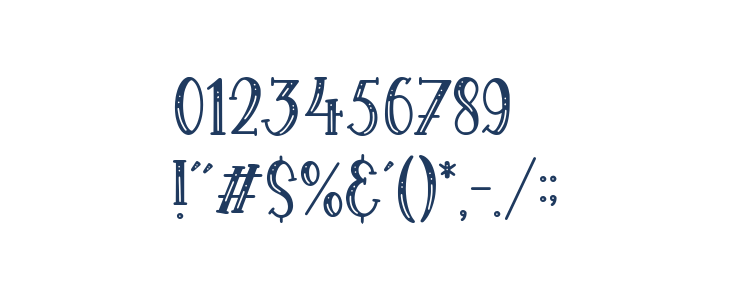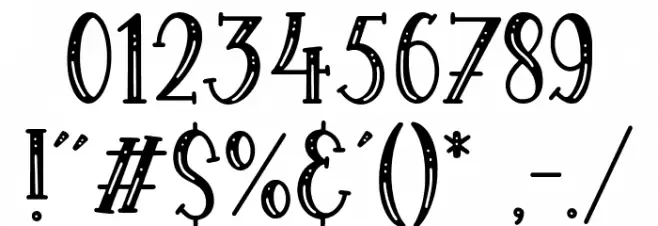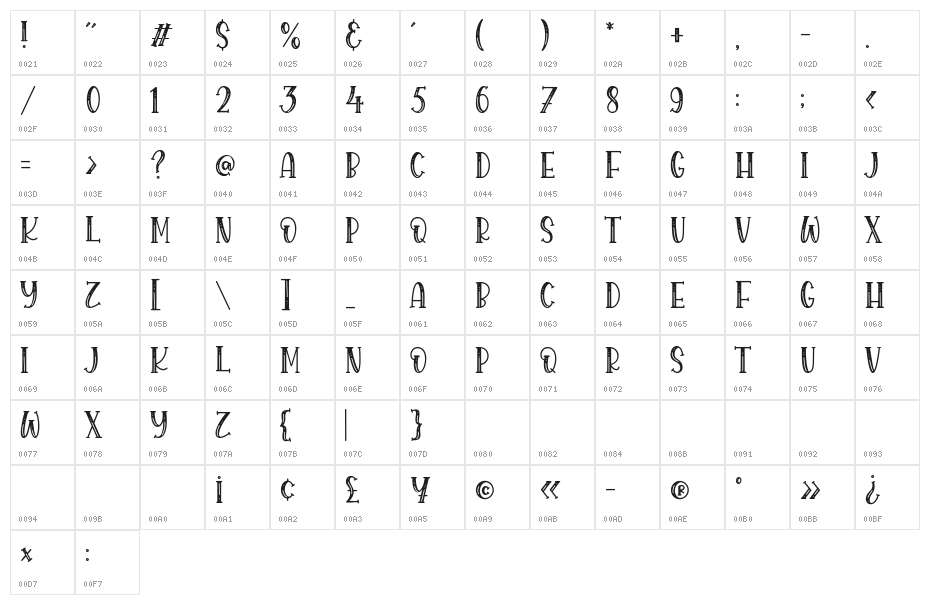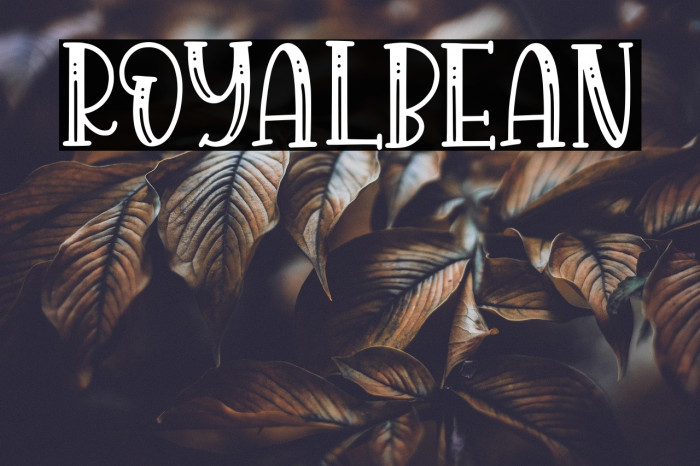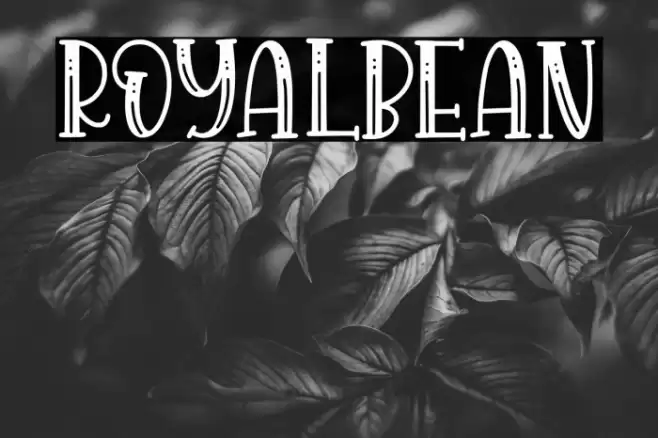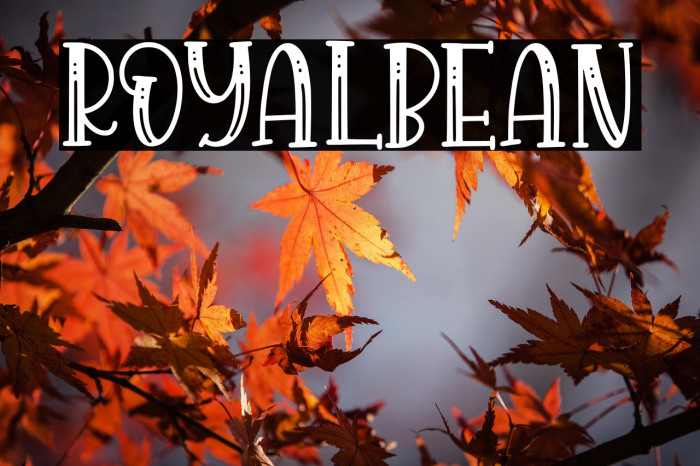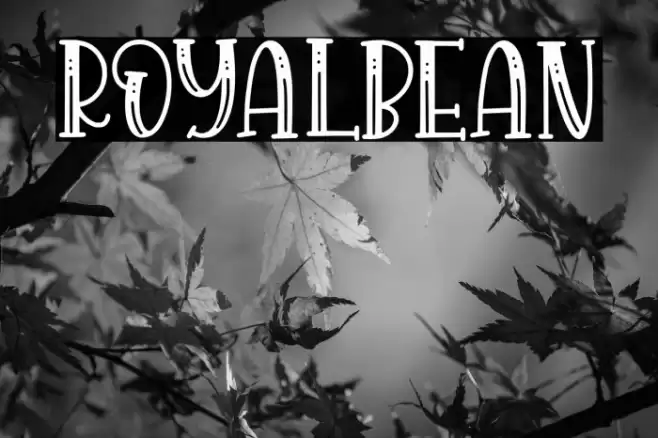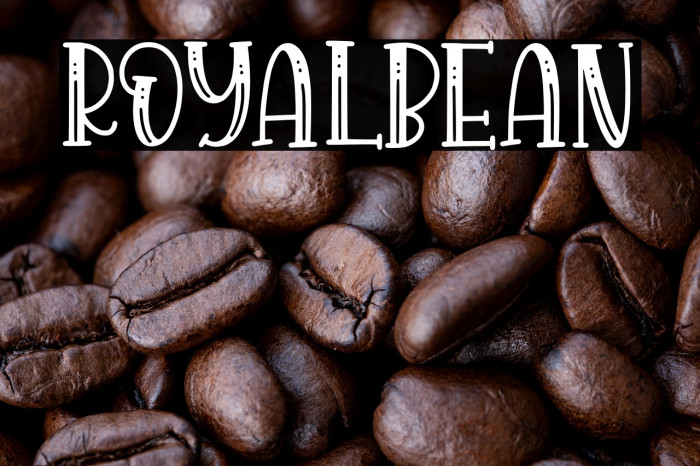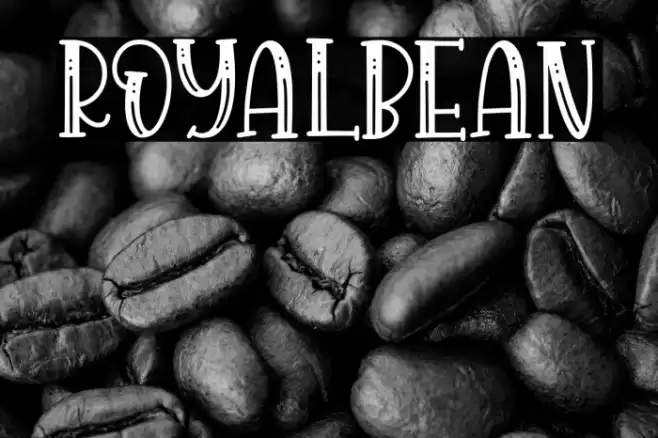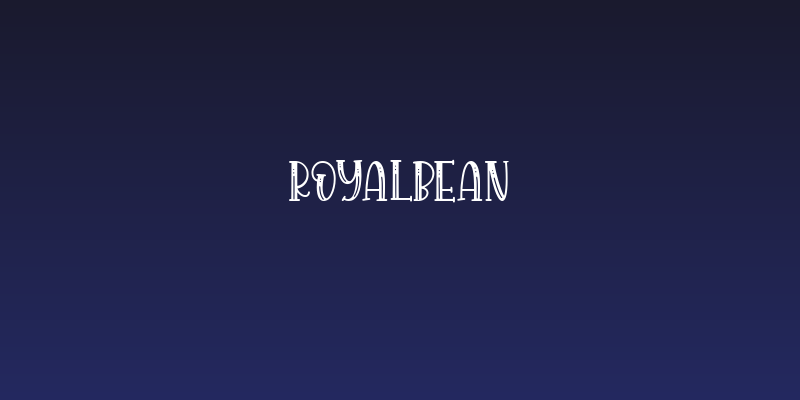
Royalbean Font
Royalbean Description
This font features a playful and decorative style with a unique blend of elegance and whimsy. Each character is adorned with small dots, adding a touch of charm and personality. The letters are tall and slender, with a slight curve that gives them a dynamic and lively appearance. The numbers and special characters maintain the same decorative elements, ensuring a cohesive look throughout. This font is perfect for projects that require a fun yet sophisticated touch, such as invitations, greeting cards, or creative branding.
| Proposed Projects | Ideal for invitations, greeting cards, creative branding, and playful designs. |